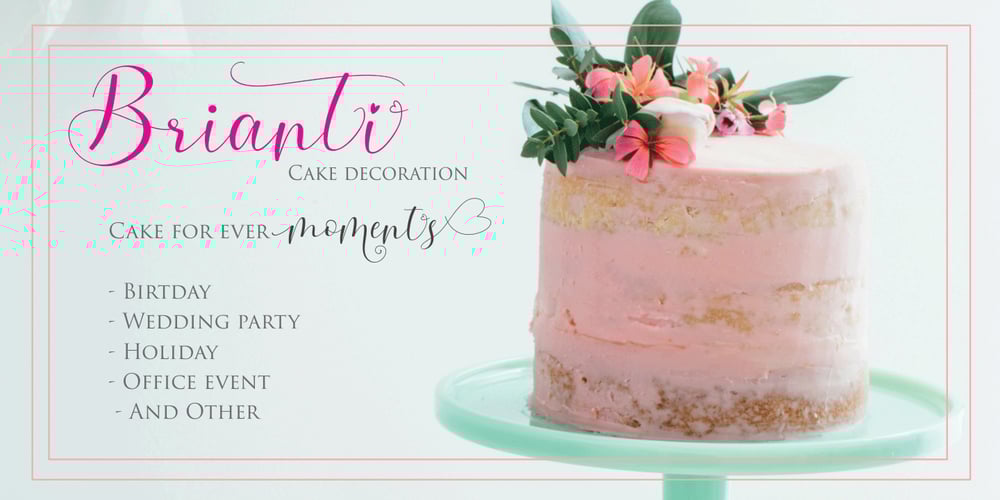
Aliyana Font Family was designed by Nasrullah and published by Sulthan Studio. Aliyana contains 1 styles and family package options. Aliyana script – a new fresh handmade calligraphy font. Very suitable for greeting cards, branding materials, business cards, quotes, posters, and more! Aliyana script – includes many alternative characters.Is coded with PUA Unicode, which allows full access to all the extra characters without having special designing software. Mac users can use Font Book. Windows users can use Character Map to view and copy any of the extra characters to paste into your favourite text editor. For folks who have opentype capable software : The alternates are accessible by turning on “Stylistic Alternates” and “Ligatures” buttons on in Photoshop’s Character panel, or via any software with a glyphs panel, e.g. Adobe Illustrator, Photoshop CC, Inkscape.